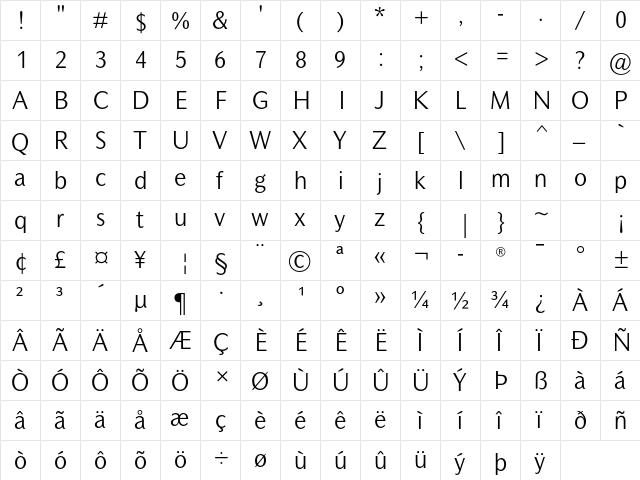
Mahsuri Sans MT Std Light
| Foundry | Agfa Monotype Corporation |
Design Context for Mahsuri Sans MT Std Typeface
Mahsuri Sans MT Std is a composed and adaptable typeface that performs quietly and consistently across a wide range of design contexts. Its slender proportions lend an understated elegance to any composition.